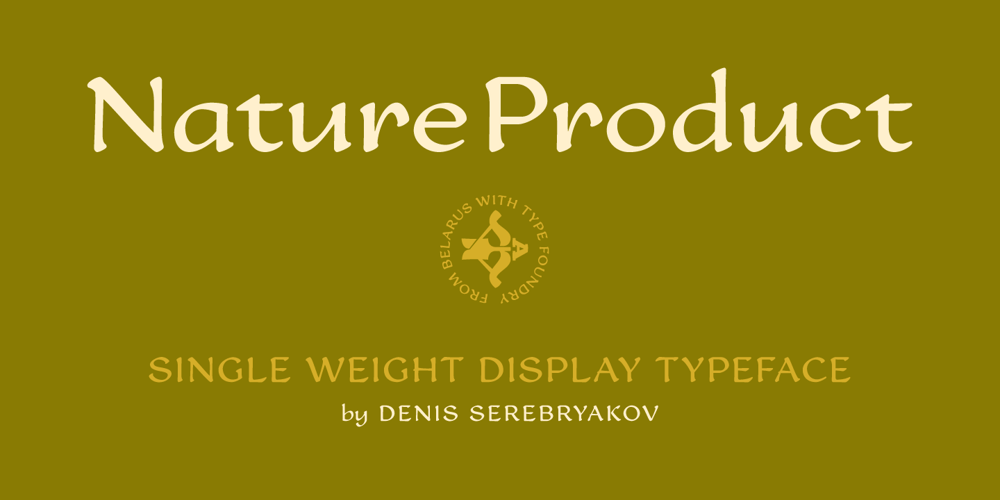
Nature Product Font Family was designed by Denis Serebryakov and published by Serebryakov. Nature Product contains 1 styles and family package options. Nature Product it’s single weight display font with ideology defines of healthy lifestyle and nutrition. Pure curves based on calligraphy method. Font perfect for use in organic foods, cosmetics, medication package design & identity projects, food editorial prints and web blogs. Enjoy!